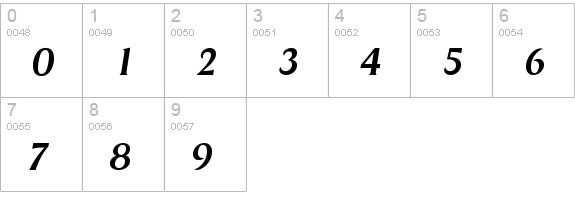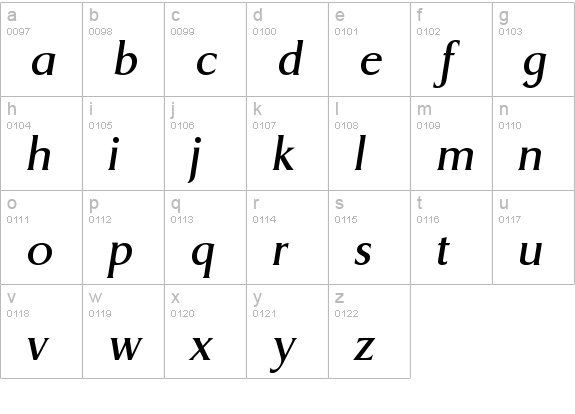
Introducing DragonEF-MediumItalic font, a stunning typeface that exudes elegance and sophistication. The italic style adds a touch of flair and refinement to any design project, making it perfect for logos, branding, invitations, and more. With its unique curves and flowing lines, DragonEF-MediumItalic brings a sense of dynamism and energy to your typography. What's even better is that DragonEF-MediumItalic font is available for free download at FontsMarket.com. This means you can easily access this beautiful typeface and use it in your creative endeavors without any cost. So why wait? Elevate your designs with the distinctive charm of DragonEF-MediumItalic font today!